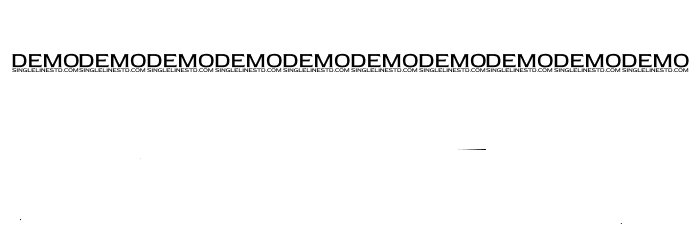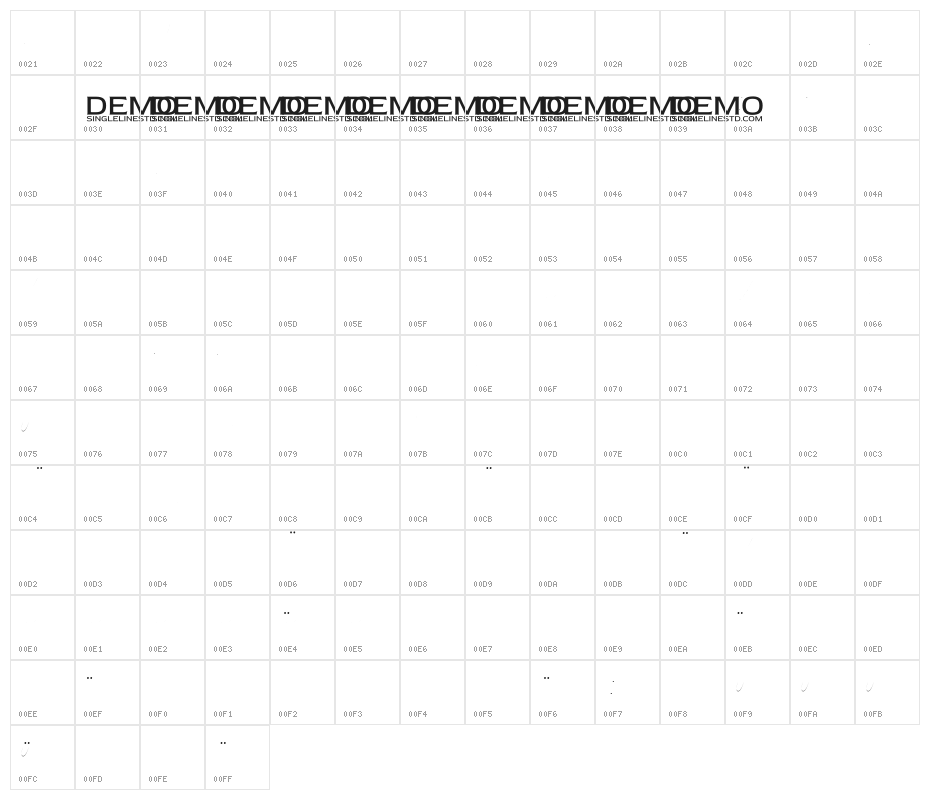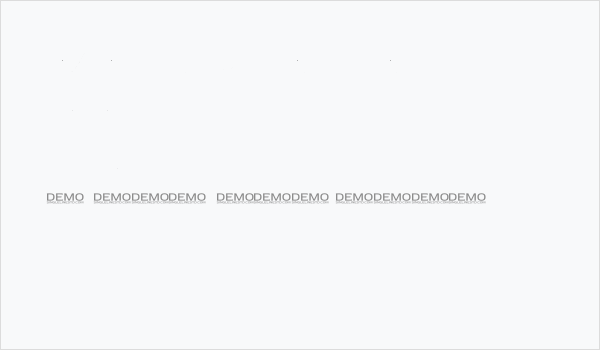
Fidelity Contrasts Single Line Font
Fidelity Contrasts Single Line Description
A modern, sans-serif font with clean lines and a minimalist design, suitable for contemporary projects.
Proposed ProjectsBranding, digital interfaces, modern print media.